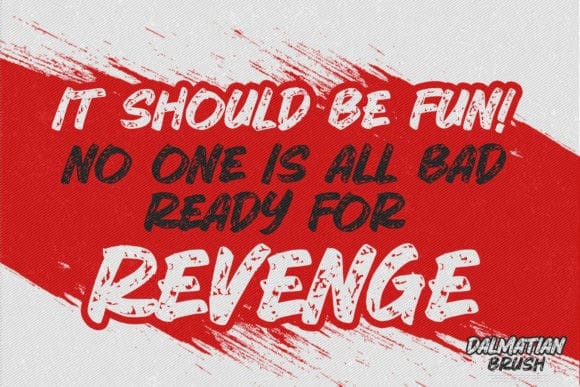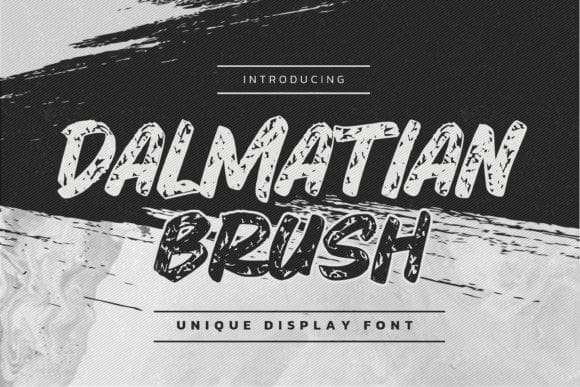
Dalmatian Brush Font
Dalmatian Brush Font, this is a Unique Display Font that is written casually and quickly.this a Authentic brush and classy style
This font are handmade with brushes on Procreate. Then crafted carefully drawn into vector format.this font is great for your creative projects such as watermark on photography, and perfect for logos & branding, photography, invitation, watermark,advertisements,product designs, stationery, wedding designs,label ,product packaging, special events or anything that need handwritting taste.
This a natural handwritten feel. This handmade font will make your design has a beautiful natural touch for each details. It is perfect for any design project as Invitation,logo, book cover, craft or any design purposes.
That is Dalmatian Brush is strong characteristic more natural look to your text with a more modern look to your text.